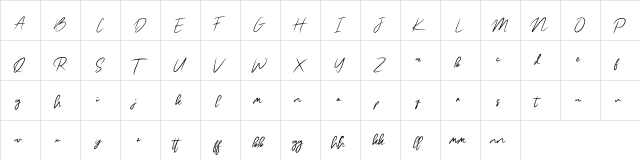
BuffaloSignature Regular
Design Context for BuffaloSignature Typeface
BuffaloSignature is a composed and adaptable typeface that performs quietly and consistently across a wide range of design contexts.